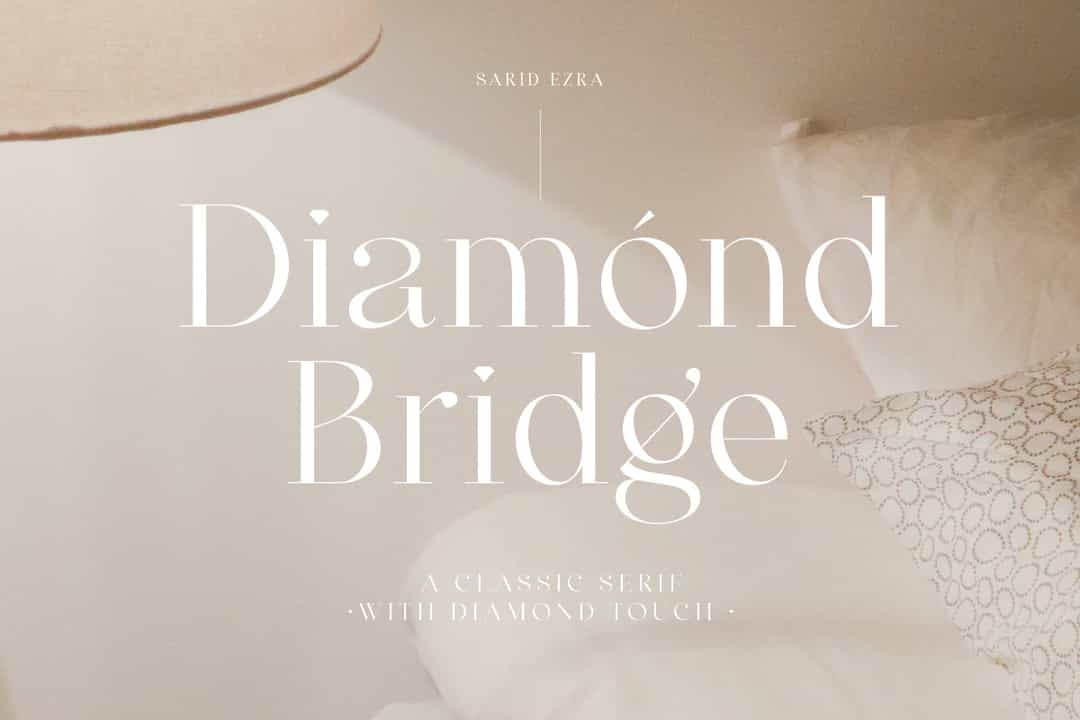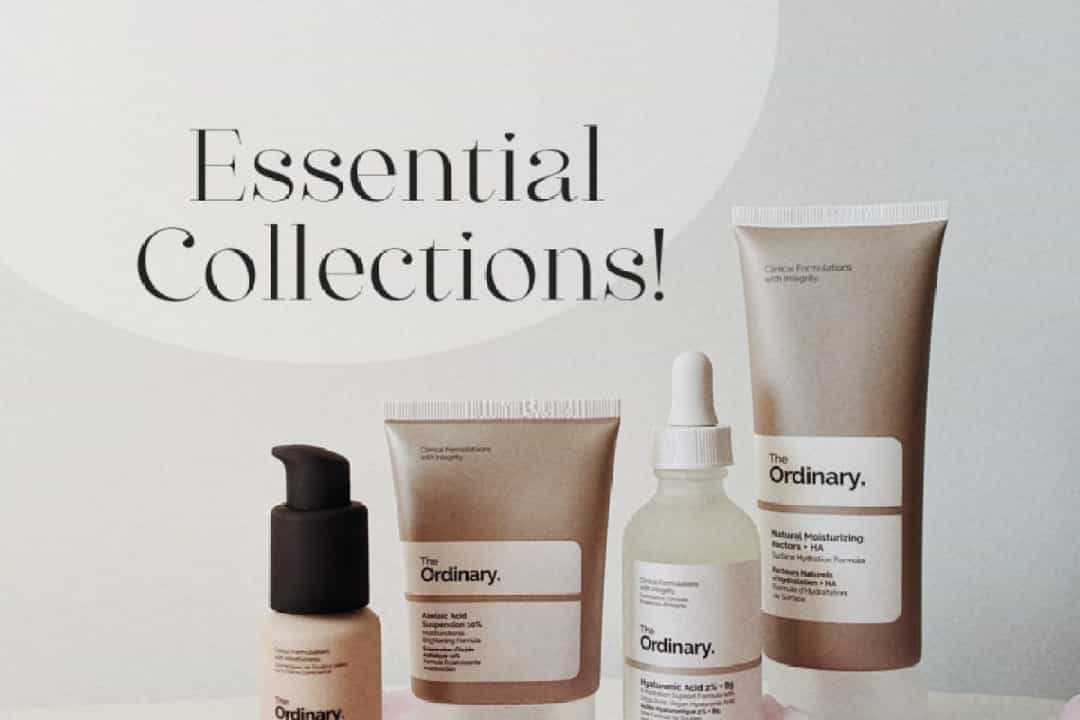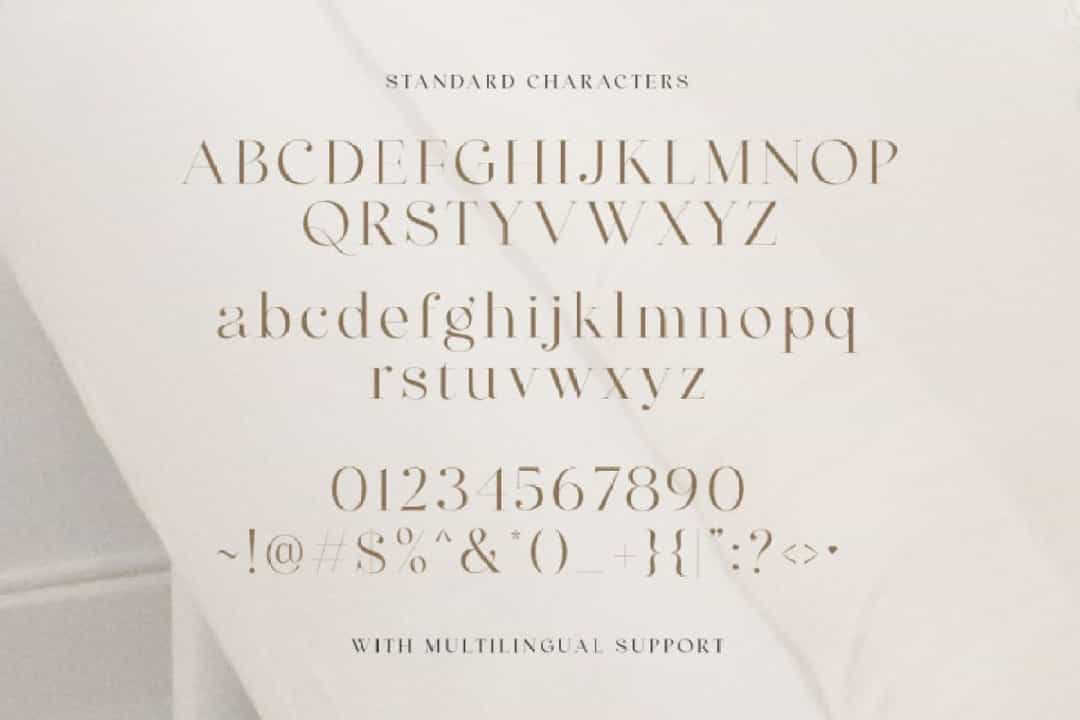
Diamond Bridge is an exquisite real serif font. This versatile font can enhance any number of craft ideas for card making, labels printing and branding – be amazed at what your projects will turn out like with it included! Give it a try in your next endeavor and be amazed by the stunning results it can produce.